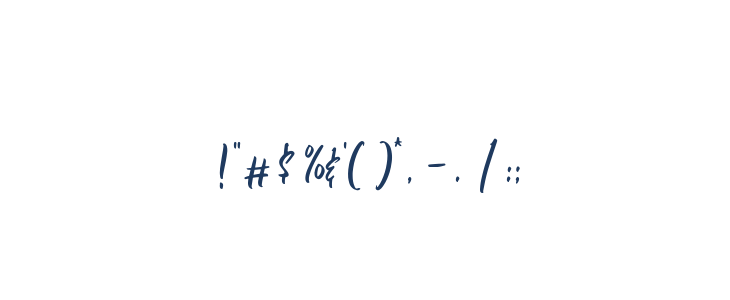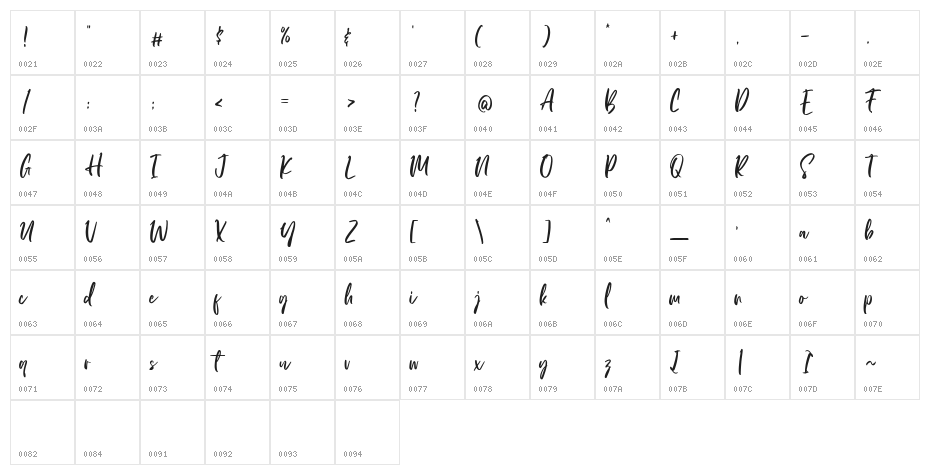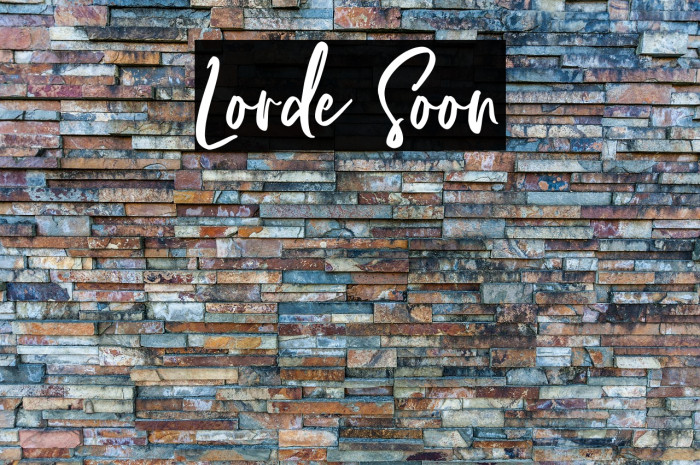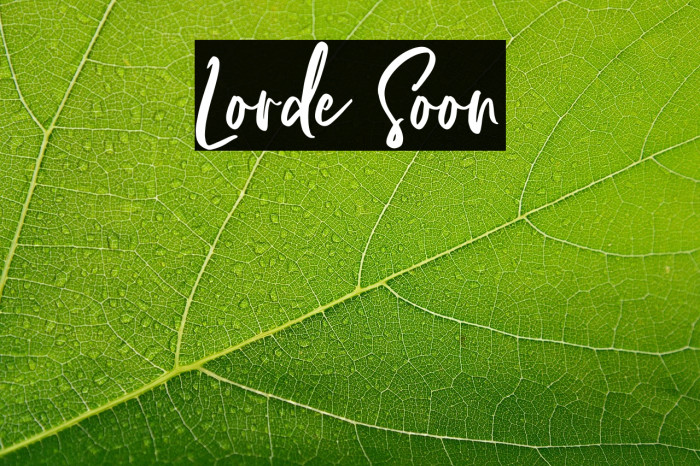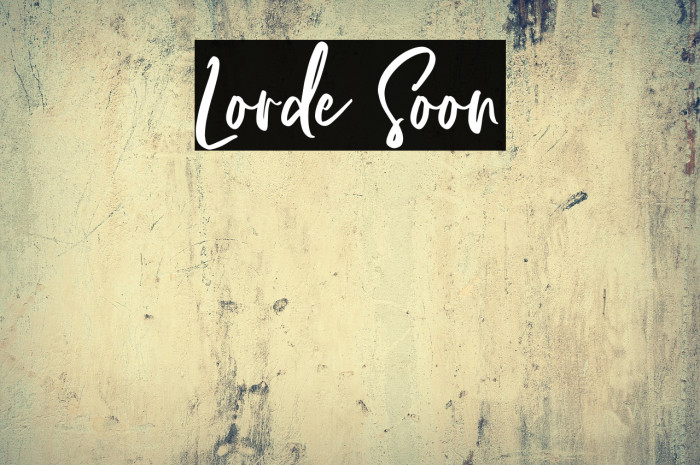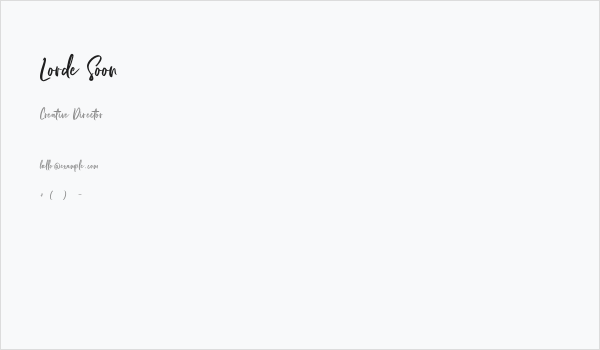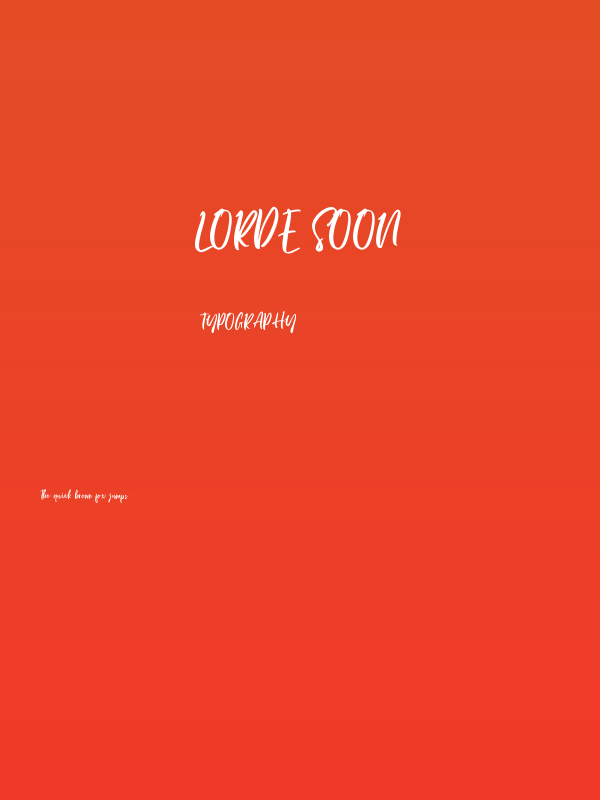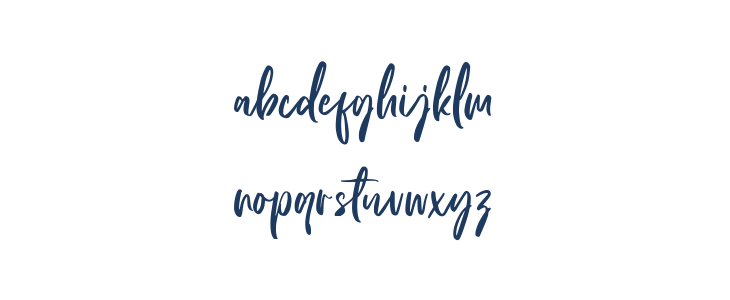
Lorde Soon Font
Lorde Soon Description
This font features a dynamic and energetic handwritten style, characterized by its fluid strokes and expressive flair. The uppercase letters are bold and slightly slanted, giving a sense of movement and spontaneity. The lowercase letters maintain a consistent flow, with some characters extending below the baseline, adding to its casual and informal appearance. The numbers and special characters are crafted with the same lively touch, ensuring a cohesive look across all elements. This font's playful yet sophisticated design makes it suitable for a variety of creative projects.